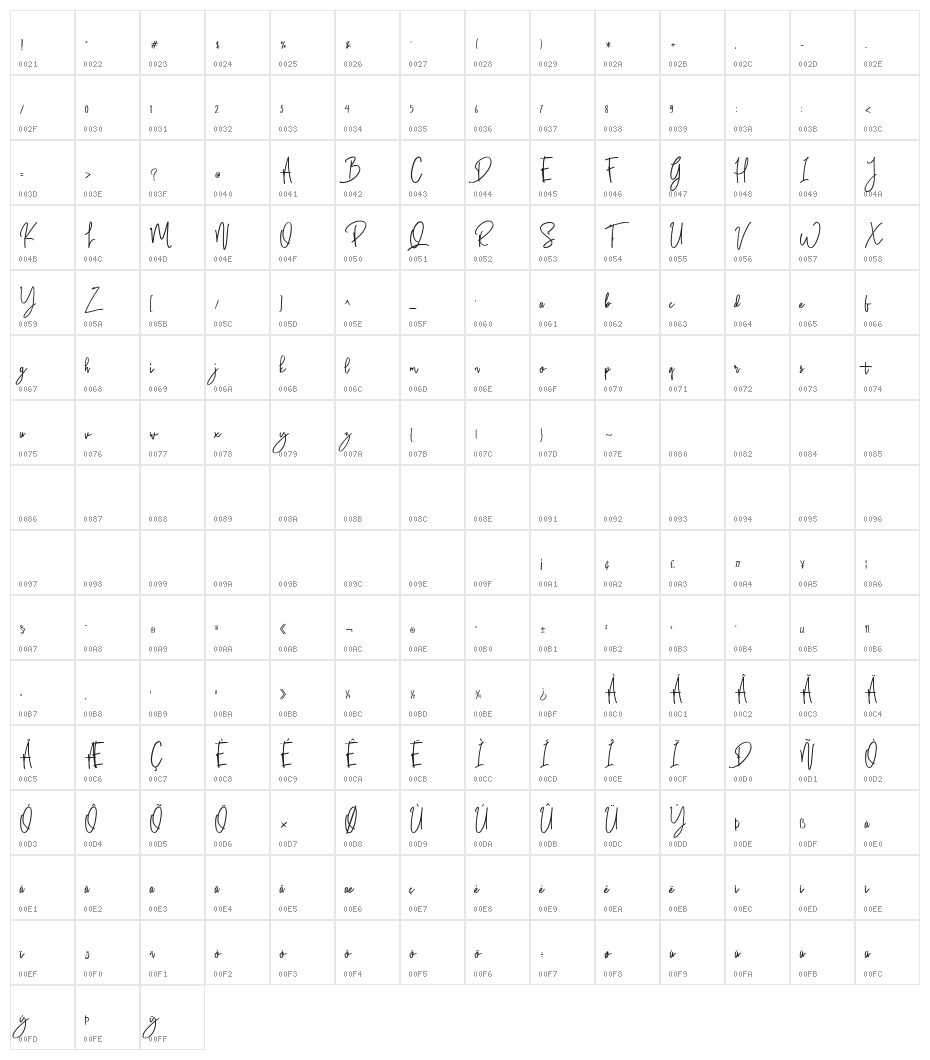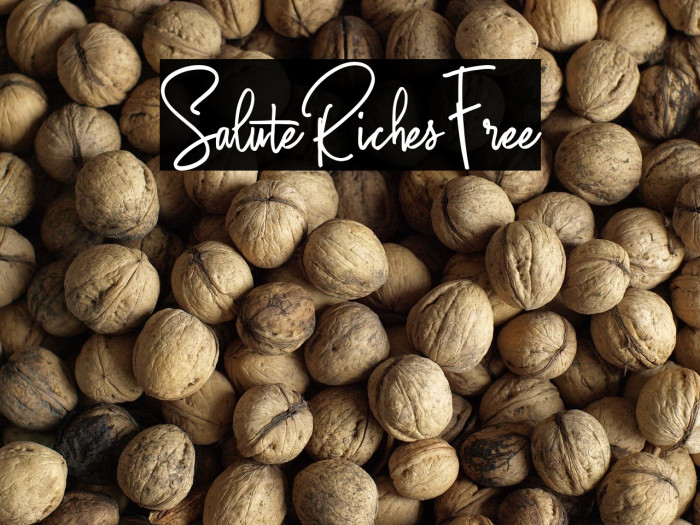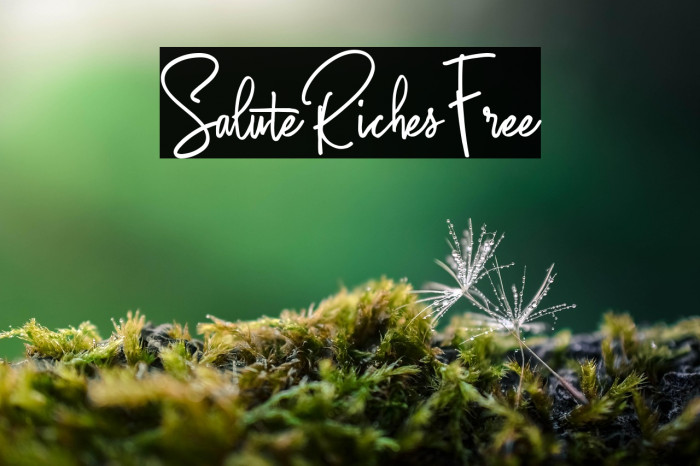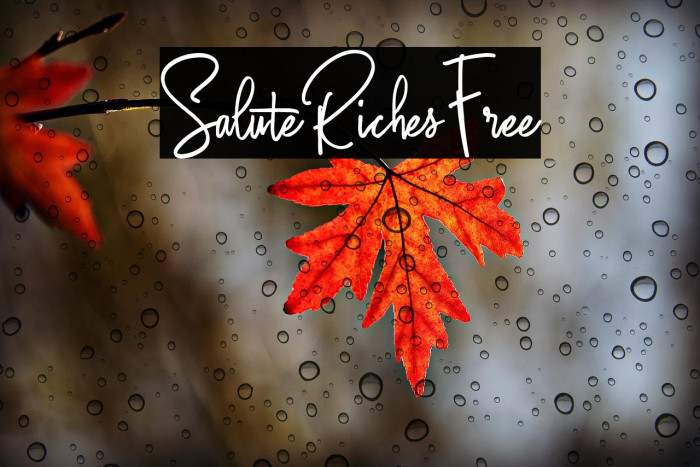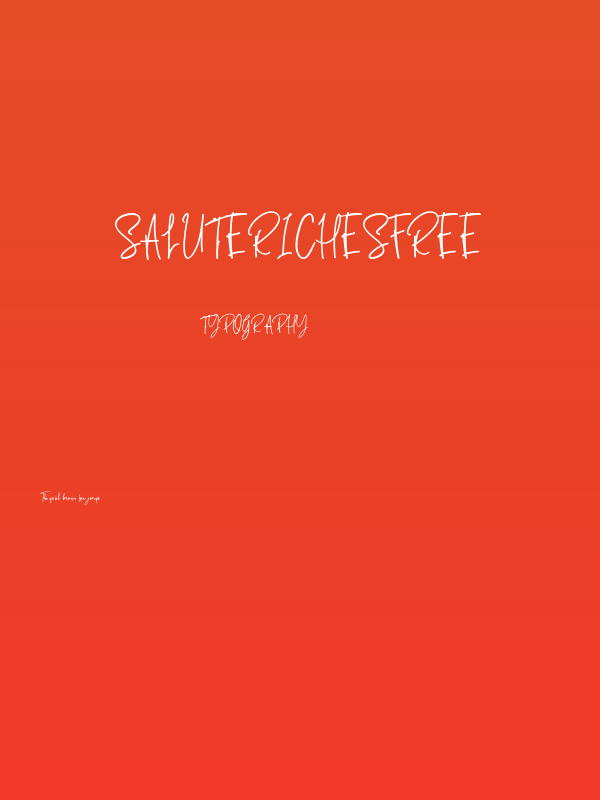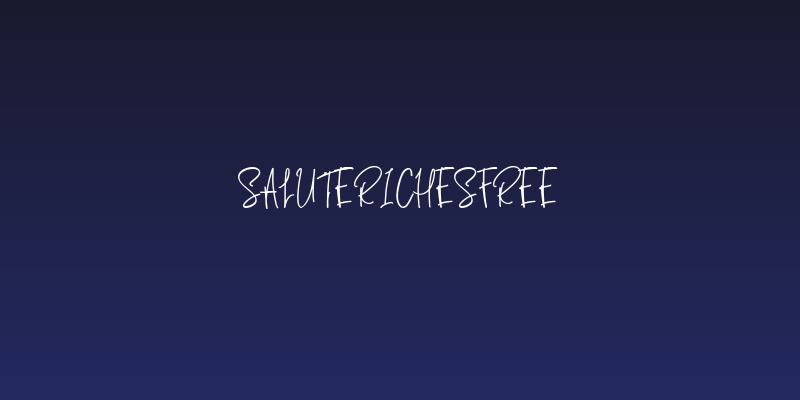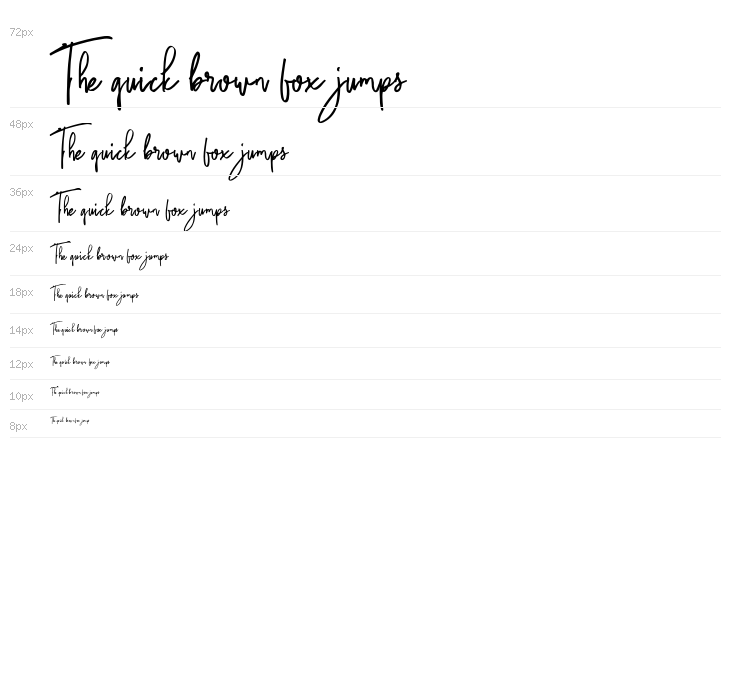
SaluteRichesFree Font
SaluteRichesFree Description
This font exudes a lively and expressive handwritten style, characterized by its fluid and dynamic strokes. The uppercase letters are bold and sweeping, with a playful yet elegant flair, while the lowercase letters maintain a consistent flow that enhances readability. The numbers and special characters complement the overall aesthetic, making it versatile for various creative applications. The font's organic and personal touch makes it ideal for projects that require a humanistic and approachable feel.
| Proposed Projects | Ideal for wedding invitations, greeting cards, personal branding, and social media graphics. |